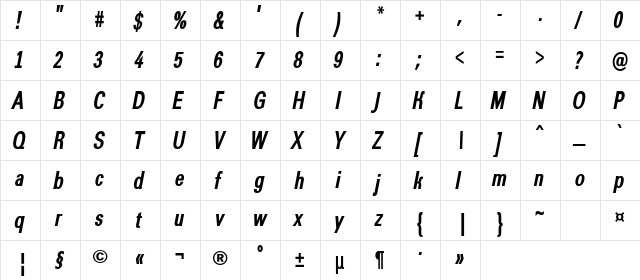
a_GroticCn BoldItalic
Design Context for a_GroticCn Typeface
a_GroticCn offers clean, dependable letterforms without strong stylistic allegiance, making it a practical choice for designers who need flexibility. Its italic angle brings a sense of urgency and motion to the letterforms. Its bold stroke weight gives it real presence on the page.
Pro Tip: Use a_GroticCn for emphasis, pull quotes, and subheadings where its slanted energy can add rhythm to the layout.